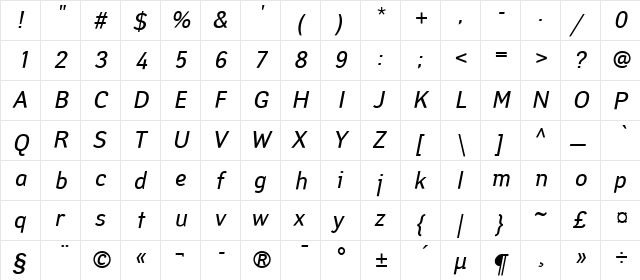
YanusC Italic
Design Context for YanusC Typeface
YanusC offers clean, dependable letterforms without strong stylistic allegiance, making it a practical choice for designers who need flexibility. The slanted form adds forward momentum and visual energy.
Pro Tip: Use YanusC for emphasis, pull quotes, and subheadings where its slanted energy can add rhythm to the layout.